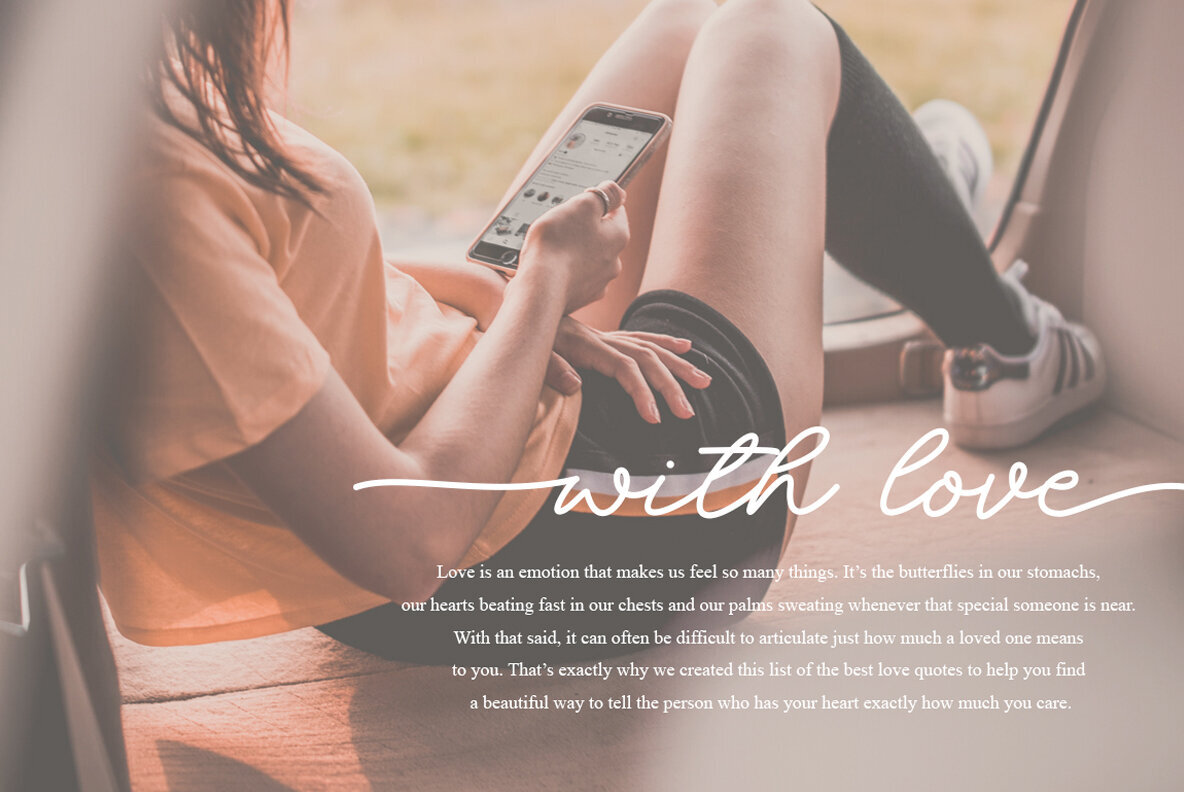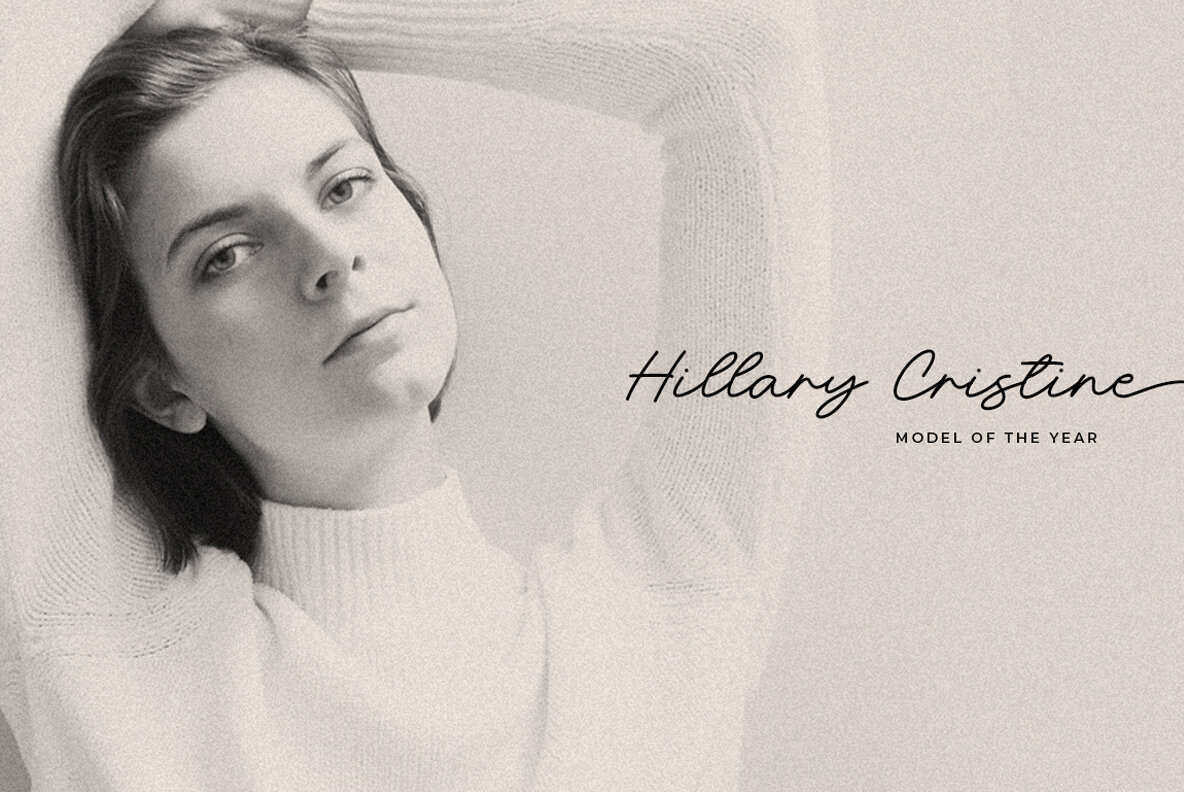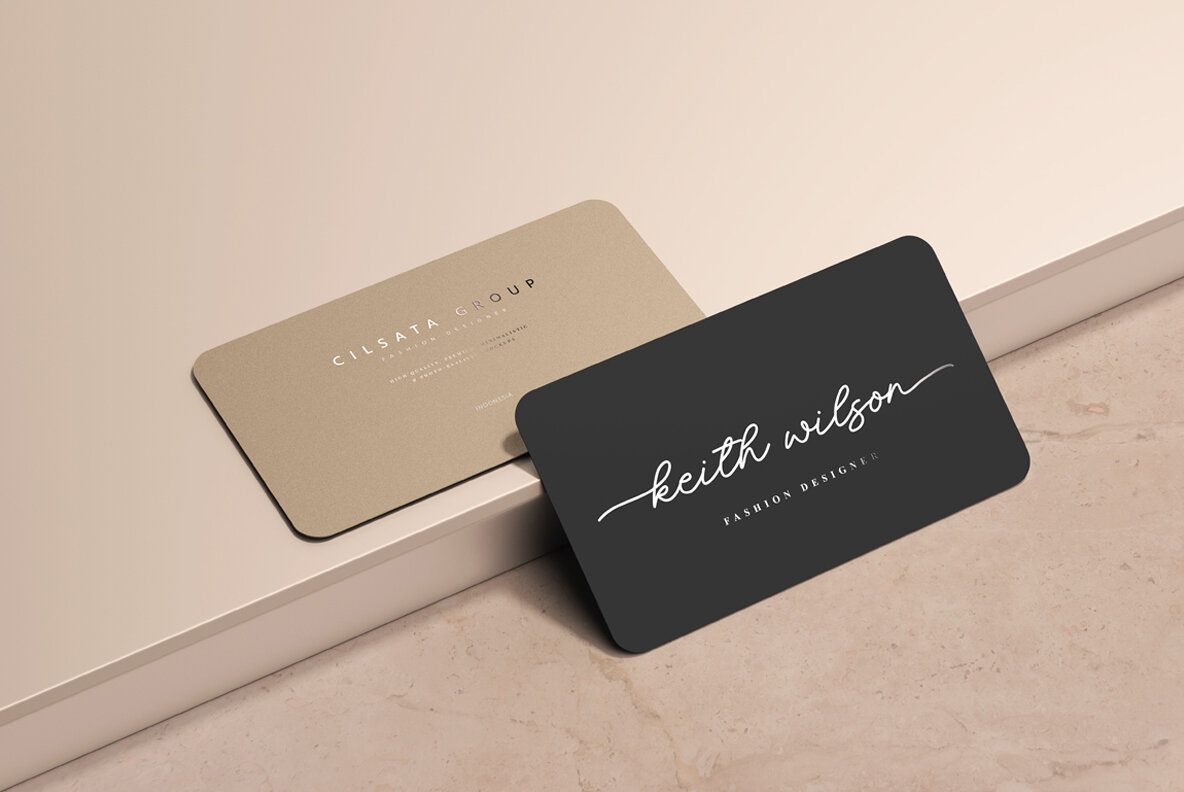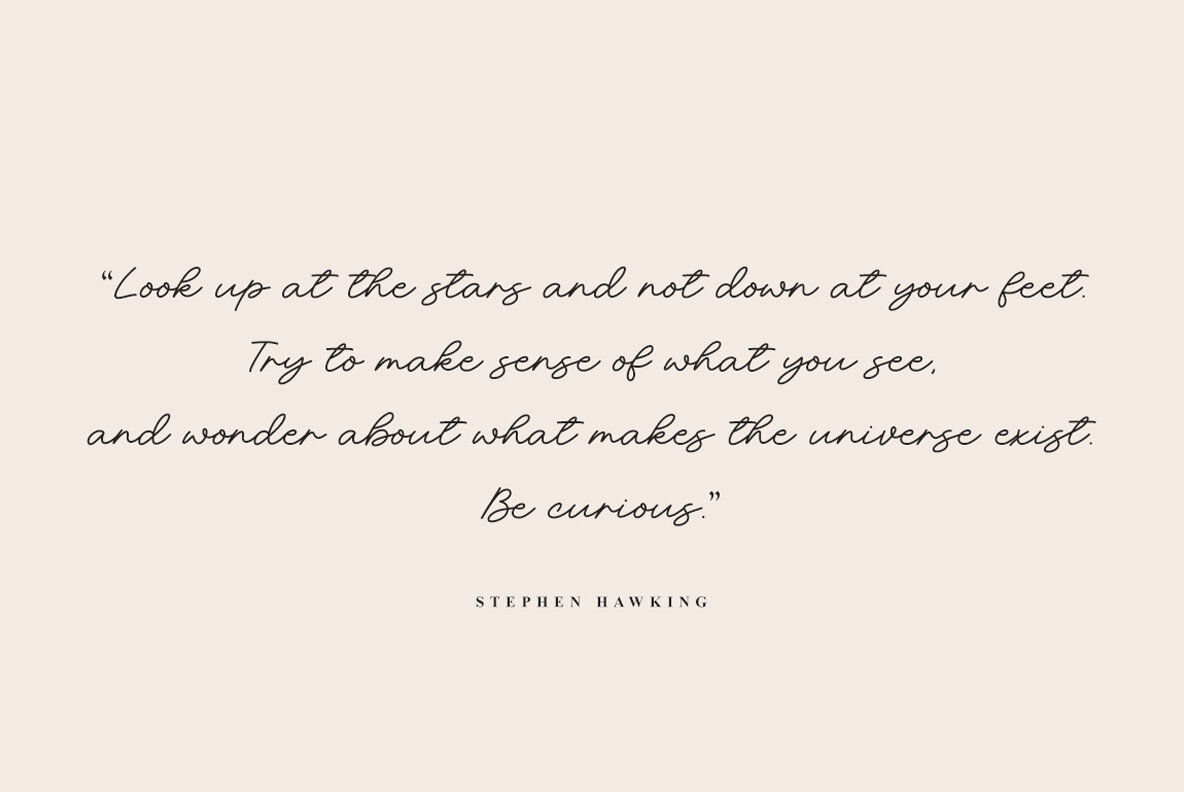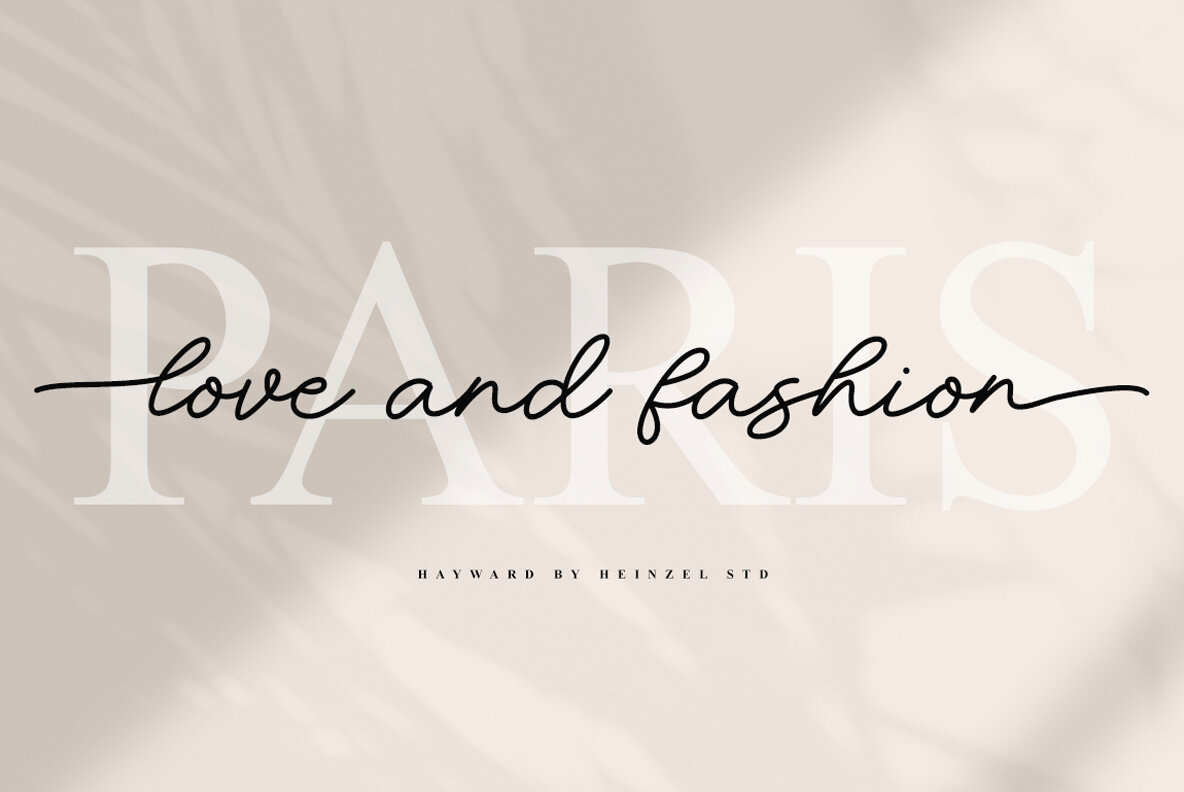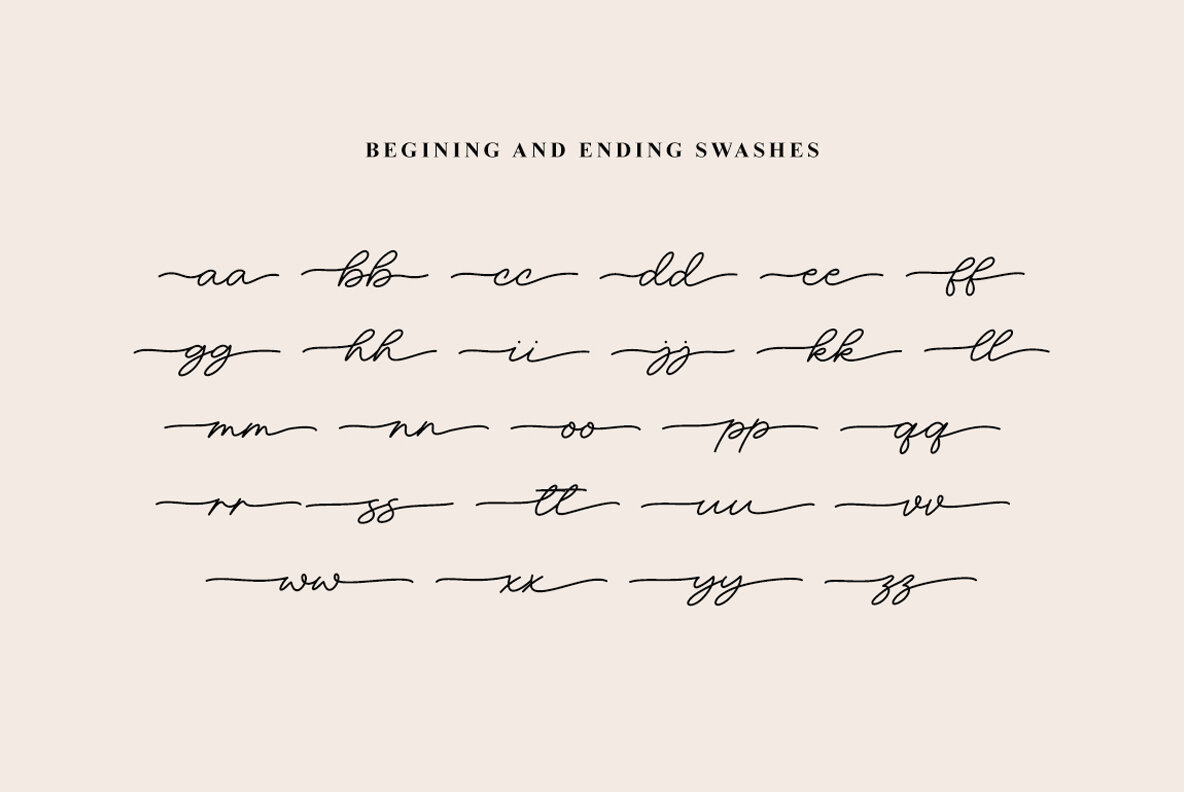
Hayward Font
Hayward Regular
Hayward is a captivating handwritten script font designed to add personal charm to your design projects. With its authentic and organic letterforms, this font brings a natural and warm feel to your work. Crafted with meticulous attention to detail, Hayward captures the essence of genuine handwriting. The fluid strokes and gentle curves create a sense of authenticity, making it perfect for personal branding, invitations, and heartfelt projects. Embrace the beauty of Hayward's handwritten style. Its natural and heartfelt design evokes warmth and personal connection, offering a versatile script font that unlocks a world of creative possibilities.Hayward: Captivating Handwritten Script Font